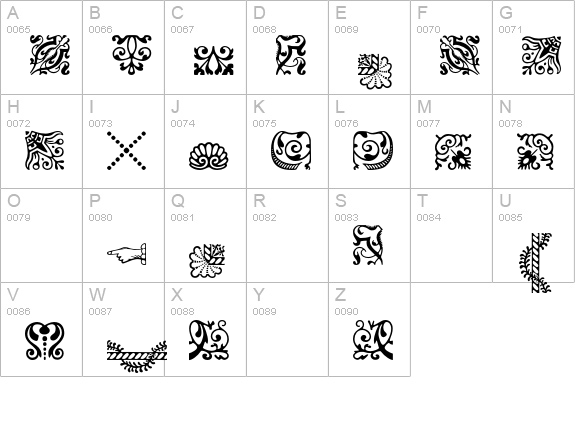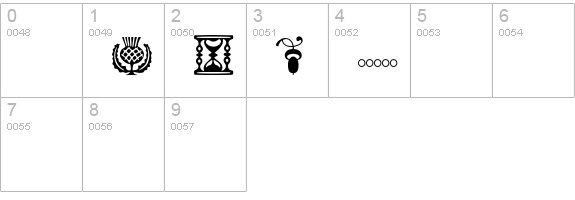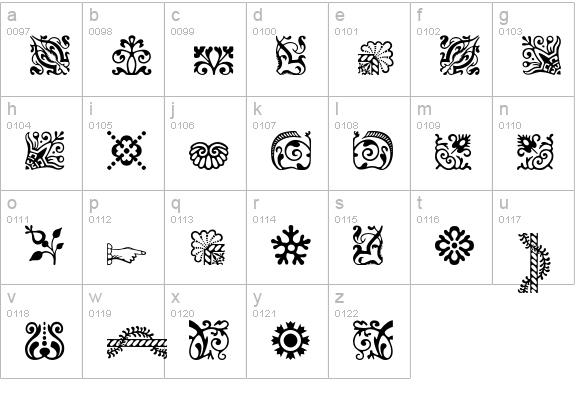
Adobe Caslon Ornaments Font Details
Adobe Caslon Ornaments is a versatile and elegant font that adds a touch of sophistication to any design. With its intricate and ornate designs, this font is perfect for creating decorative elements, borders, and embellishments. The timeless beauty of Caslon Ornaments makes it a popular choice for invitations, stationery, and other creative projects. What makes Adobe Caslon Ornaments even more appealing is that it is available for free download at FontsMarket.com. Now you can easily enhance your designs with this stunning font without any cost. Whether you are a professional designer or a DIY enthusiast, Adobe Caslon Ornaments is a valuable addition to your font collection. Download it today and elevate your projects with its classic charm and intricate details.